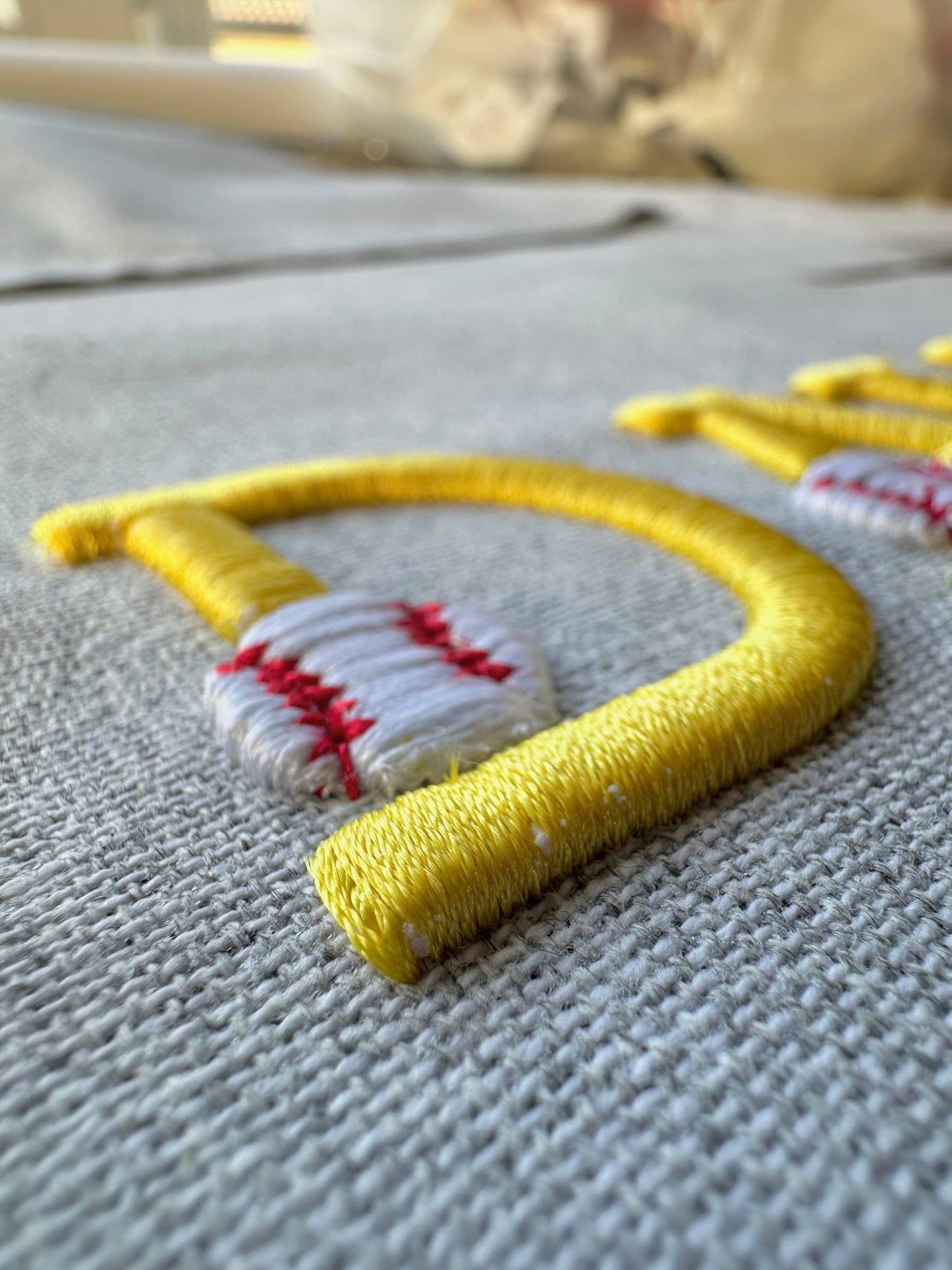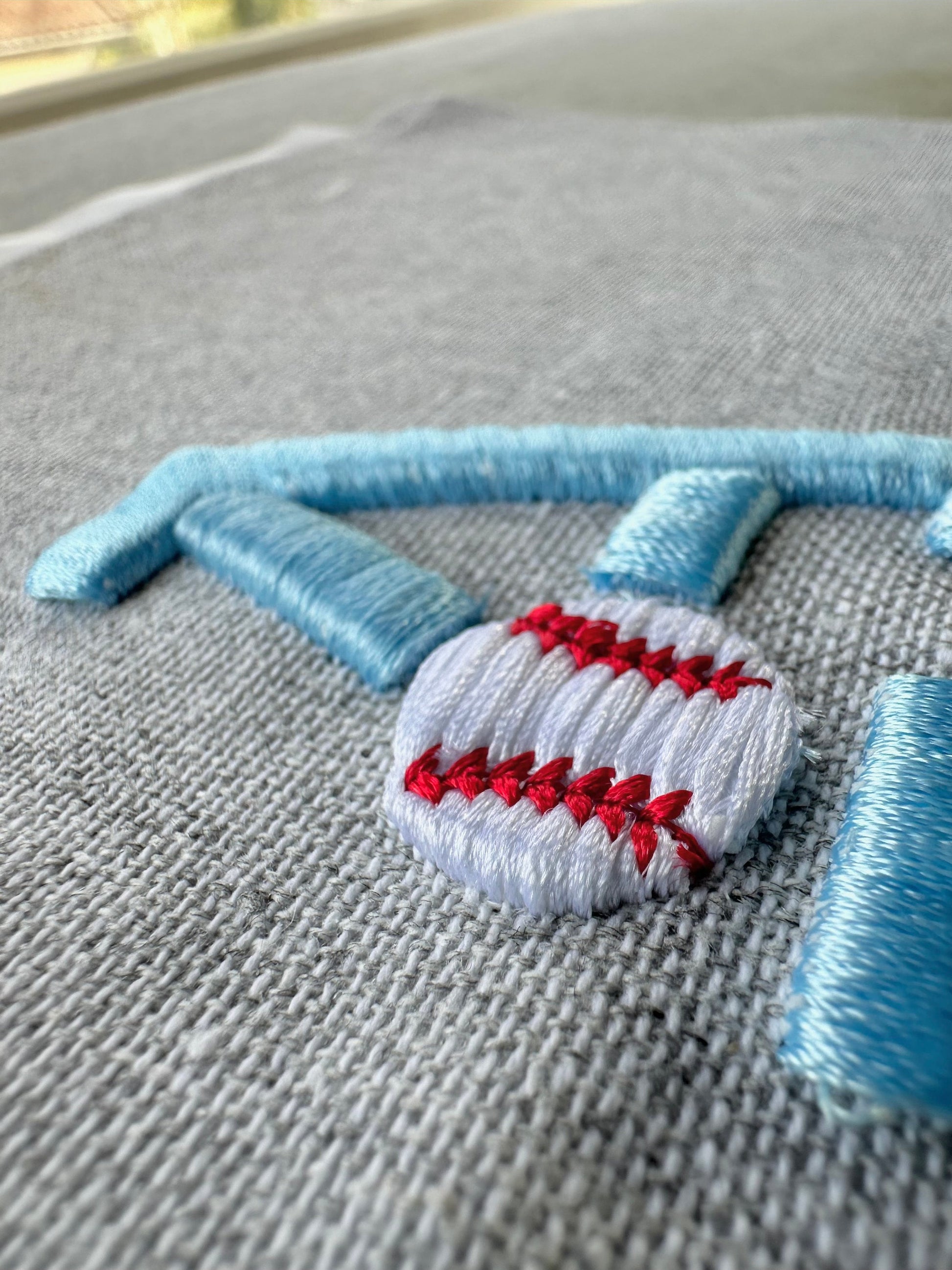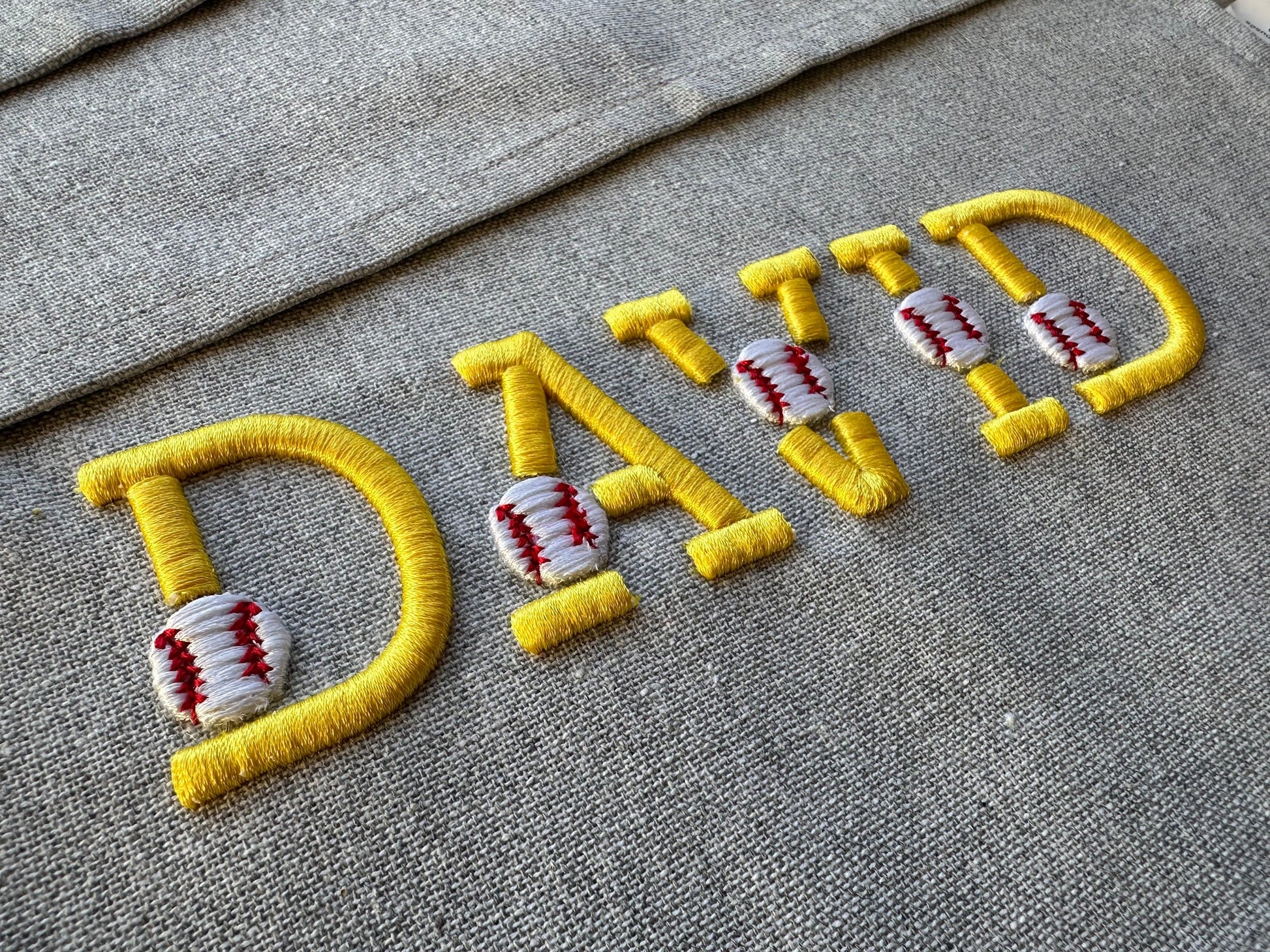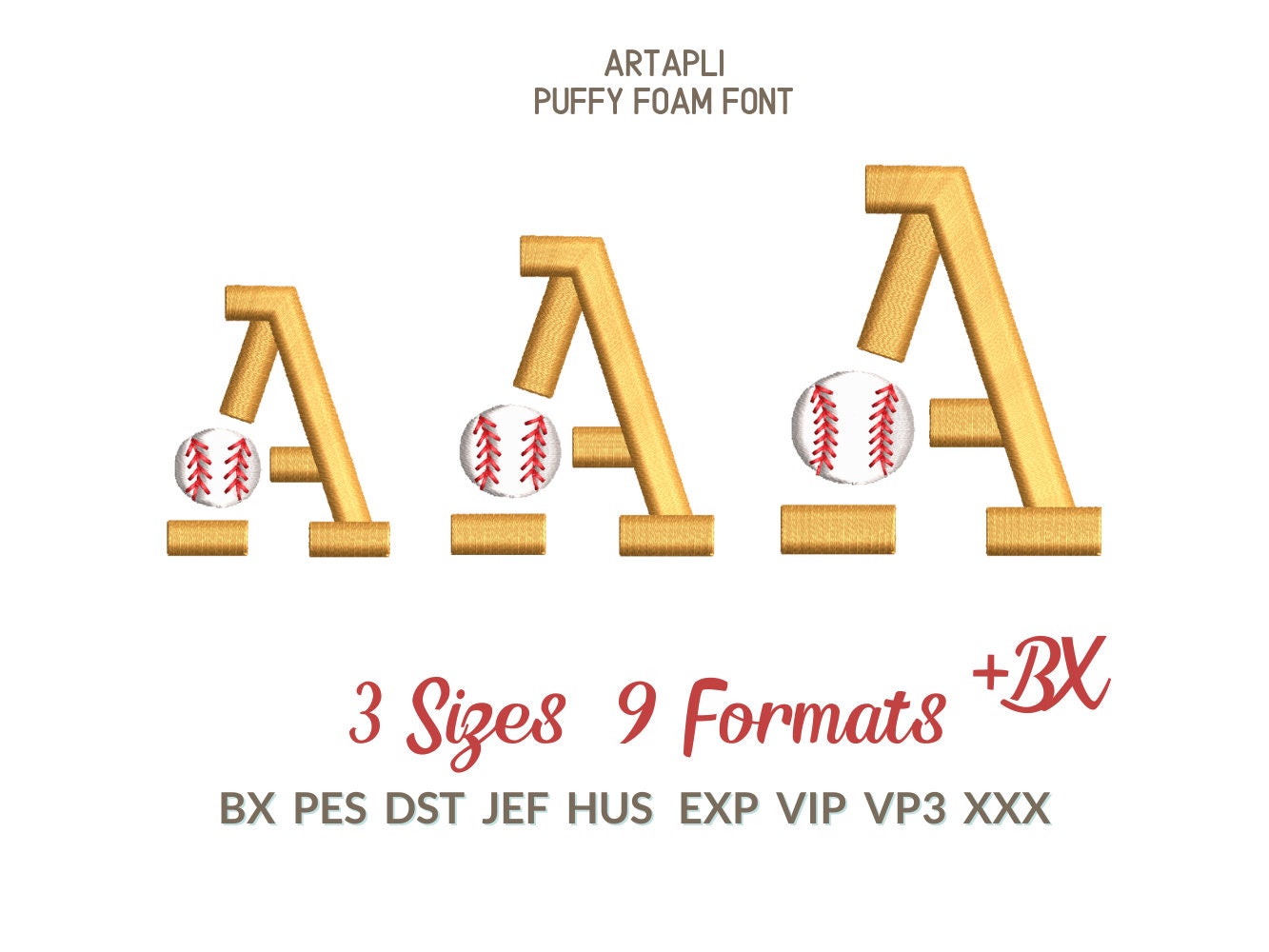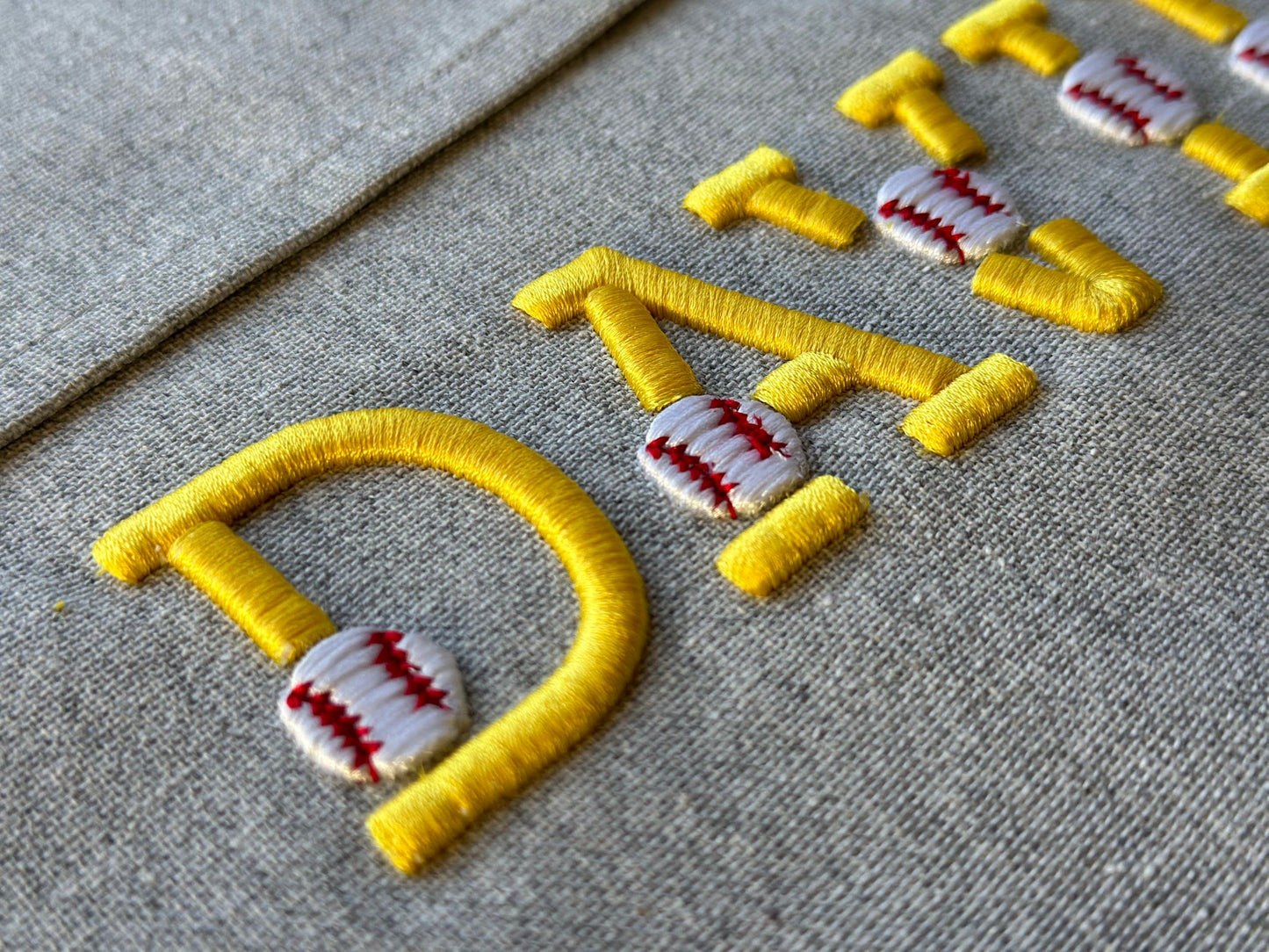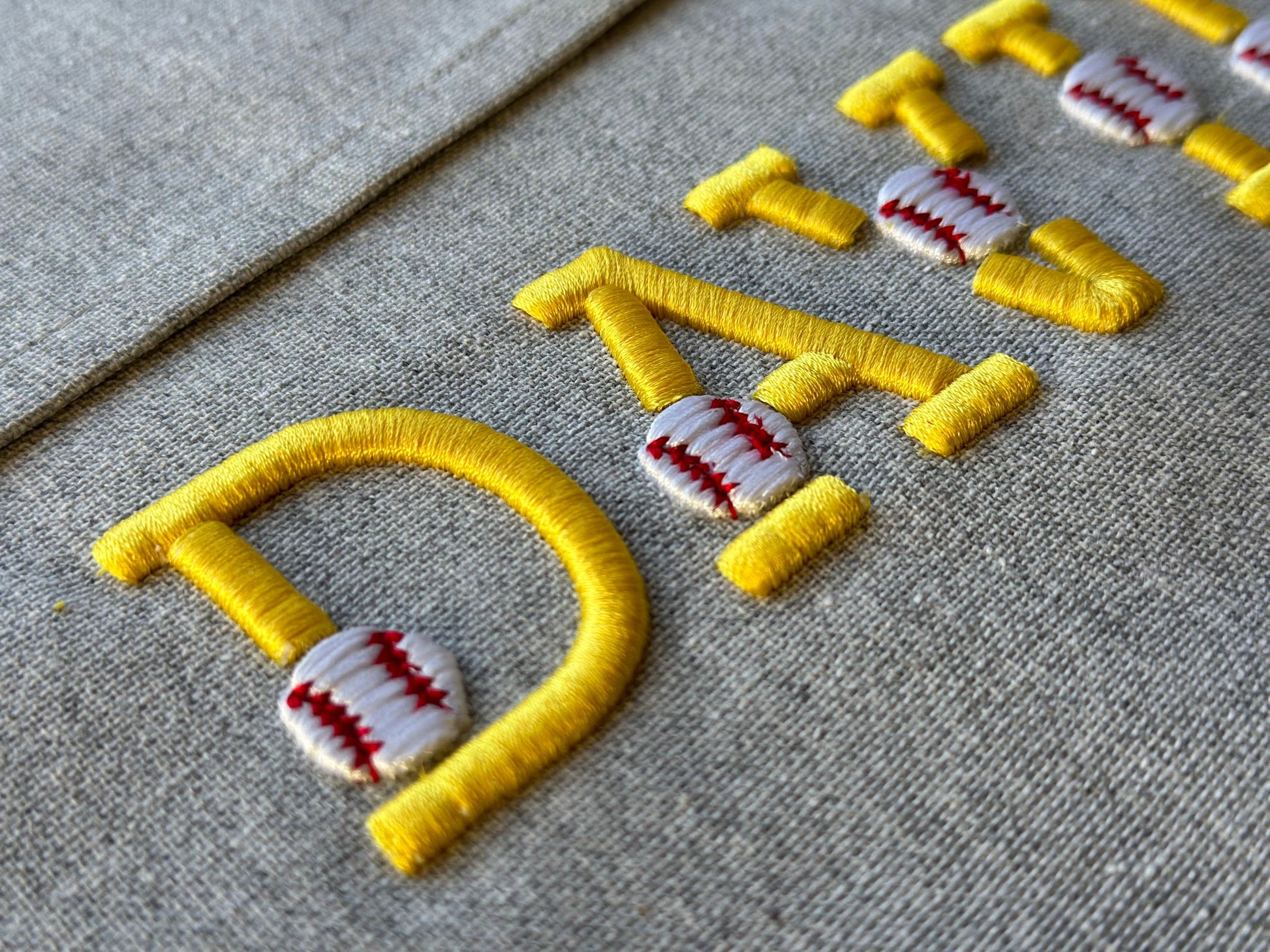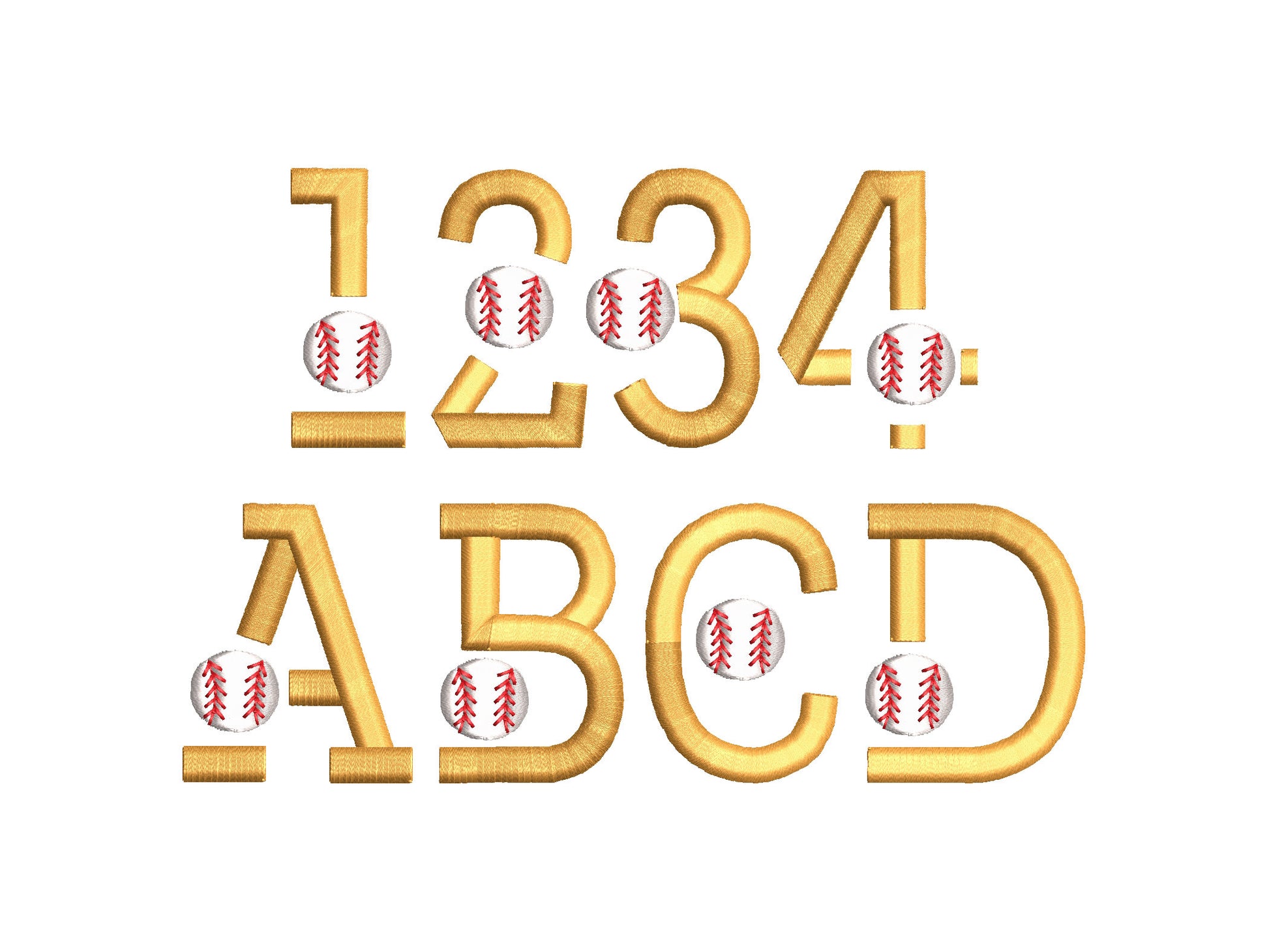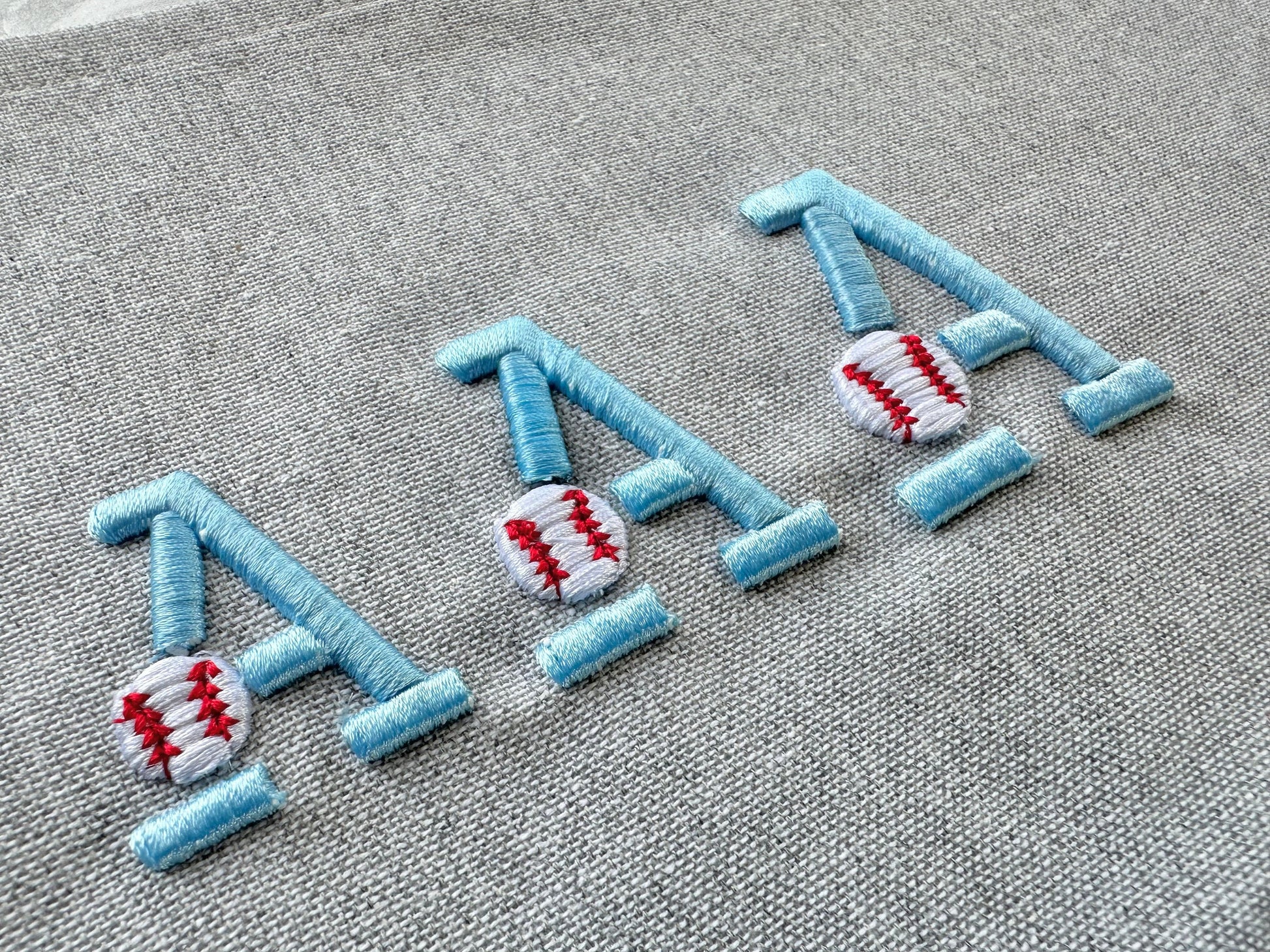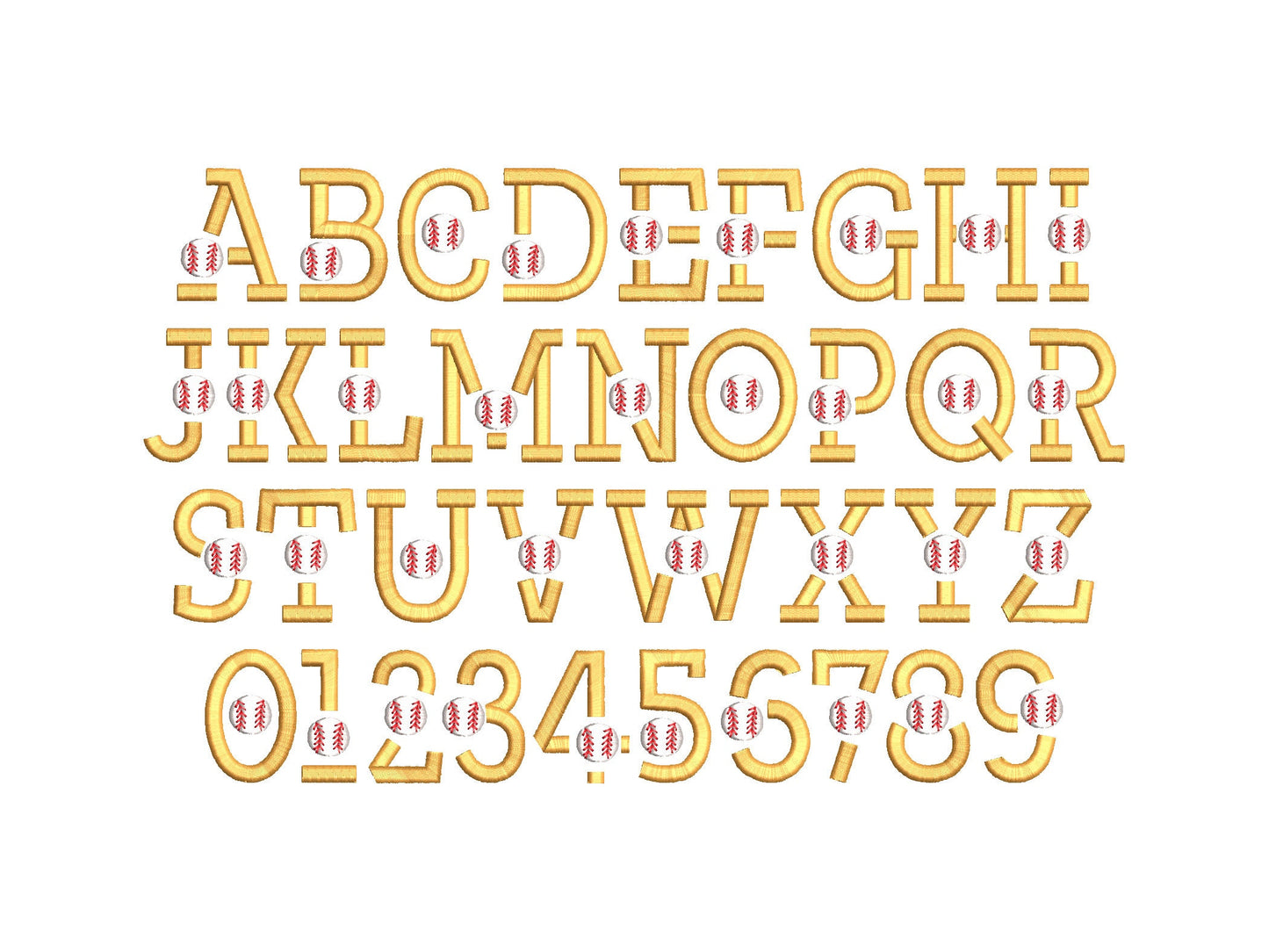
Puffy Puff Foam Baseball Font
Or click to open the linkBaseball Puff Embroidery Font puffy foam machine embroidery designs 3D raised alphabet monogram Sport Block Font sizes 1.3, 1.7, 2" Whole alphabet A-Z uppercase and numbers 0-9.
For this design puffy foam is required. I'm using Gunold puffy foam thickness 3 mm.